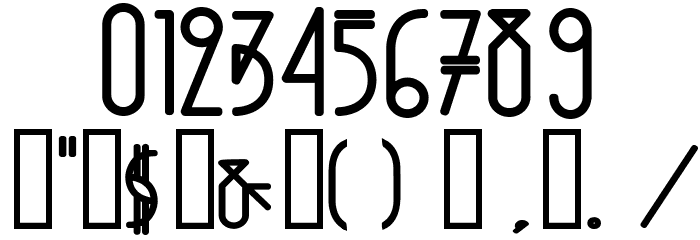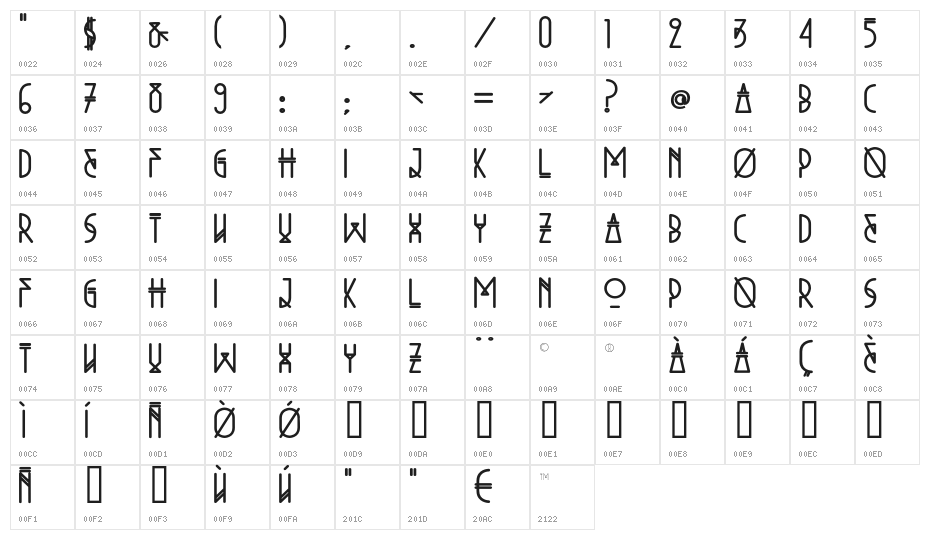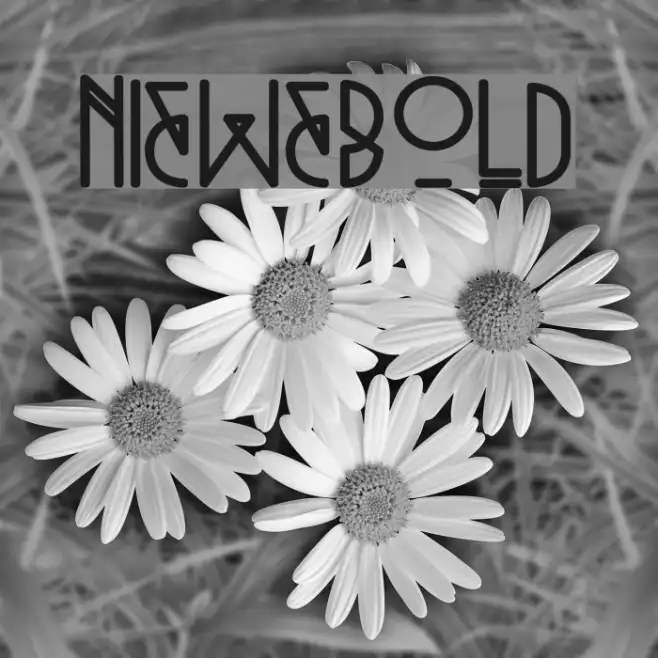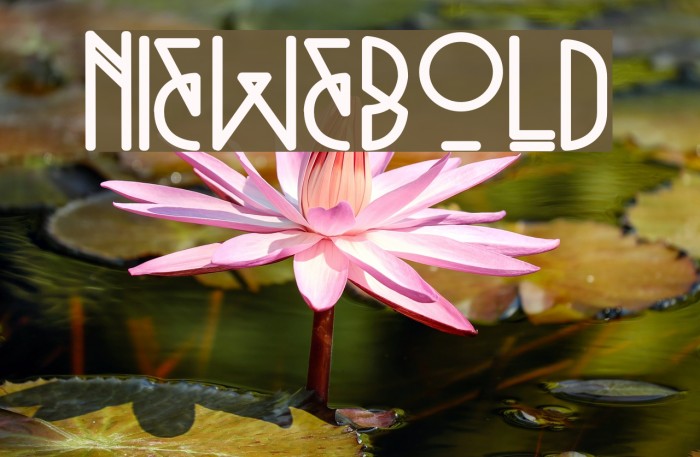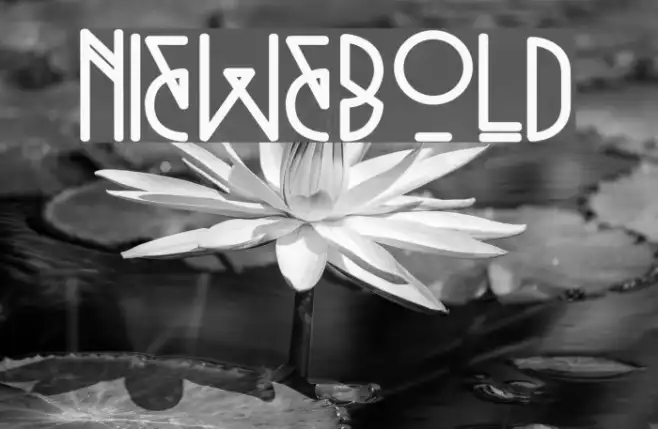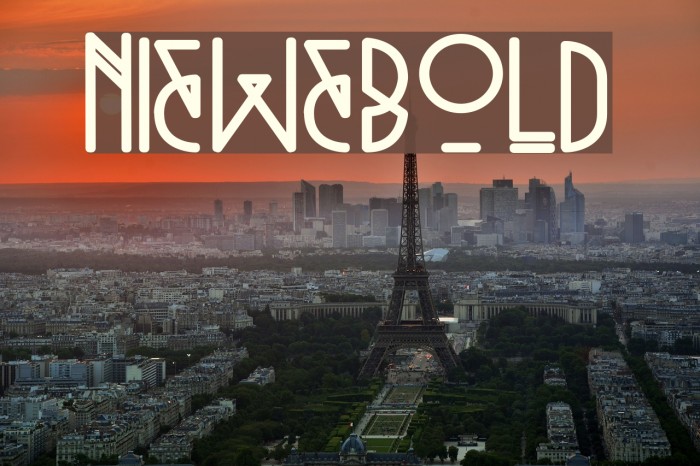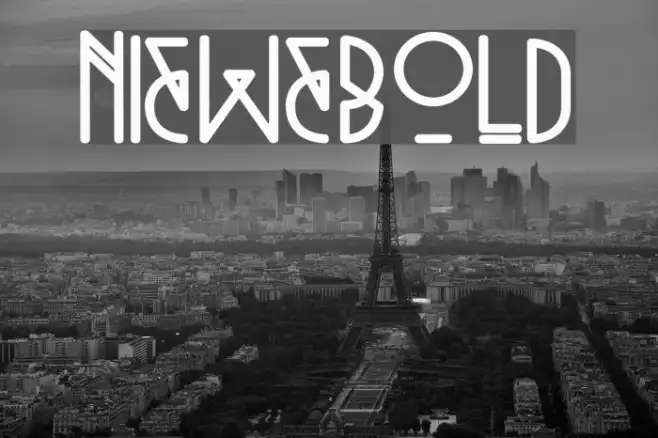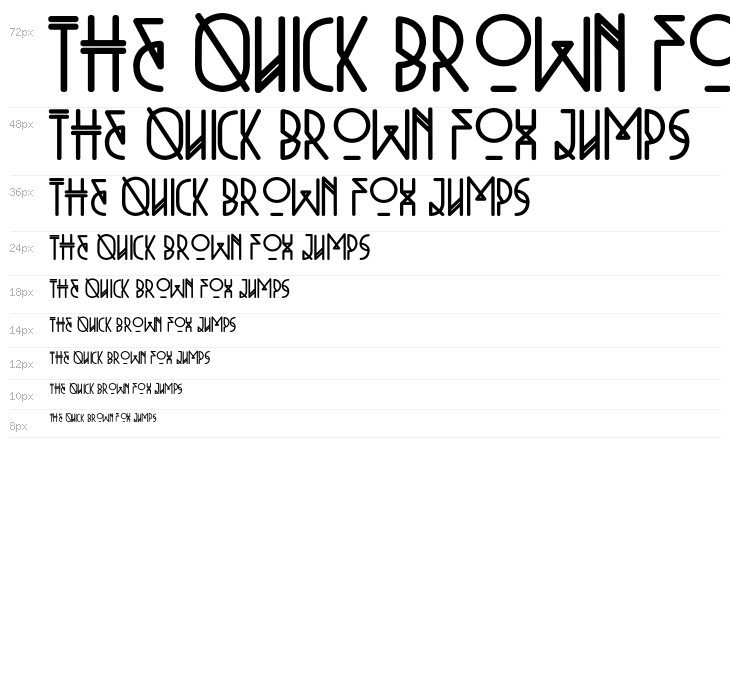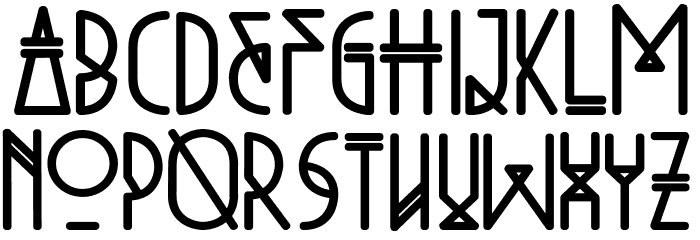
Niewe-Bold Font
Niewe-Bold Description
This font features a unique and modern design with geometric elements and a futuristic aesthetic. The characters are composed of bold, clean lines with a consistent stroke width, giving it a structured and uniform appearance. The uppercase letters incorporate distinctive shapes, such as triangles and diagonal lines, adding a dynamic and innovative touch. The numerals and special characters maintain the same stylistic approach, ensuring cohesion across all glyphs. This font stands out with its creative use of negative space and angular forms, making it ideal for projects that require a contemporary and edgy look.
| Proposed Projects | Ideal for branding, posters, album covers, and digital media that require a futuristic and stylish appearance. |